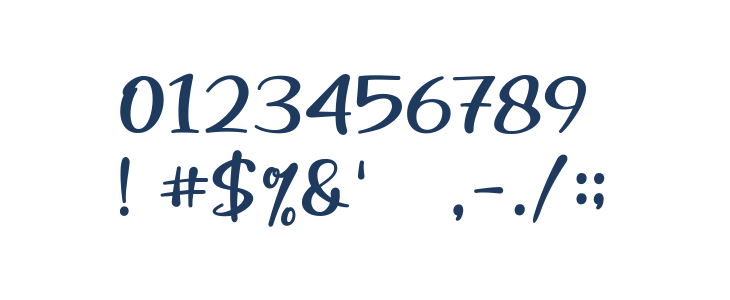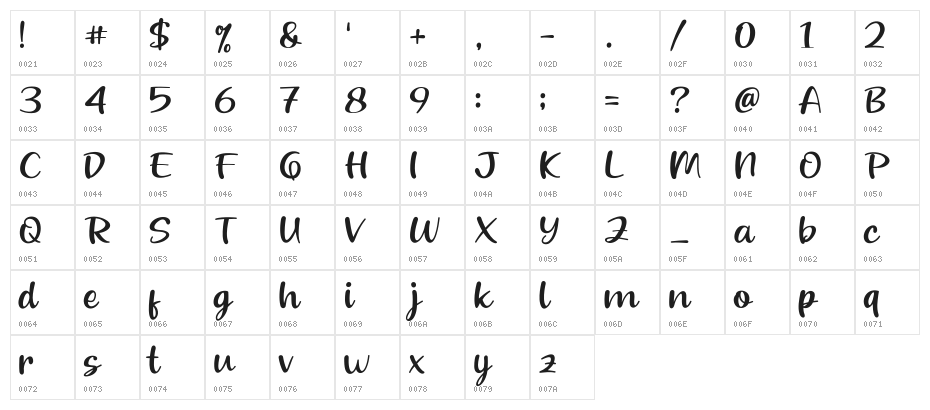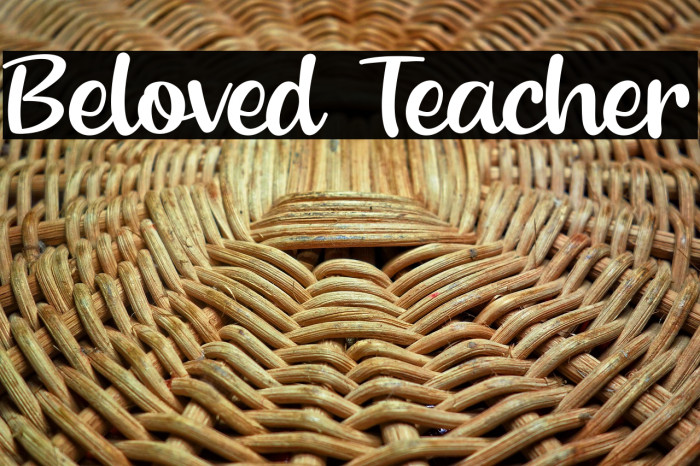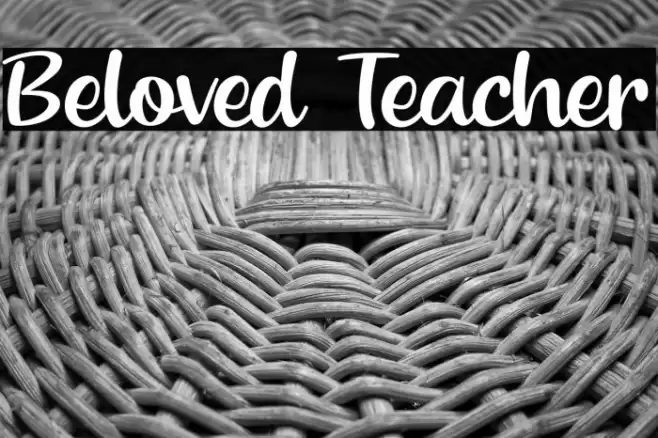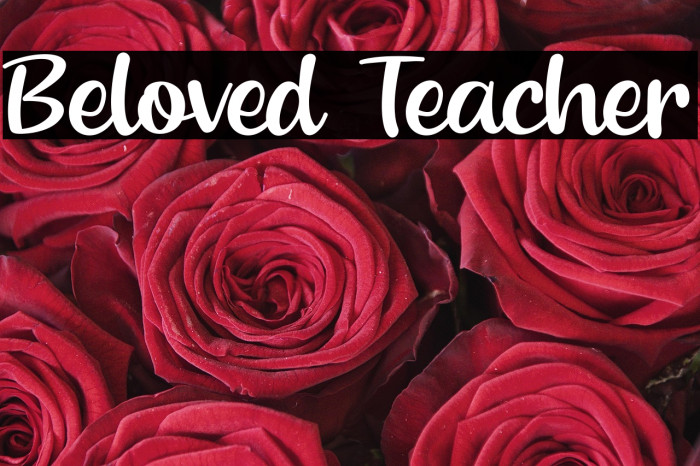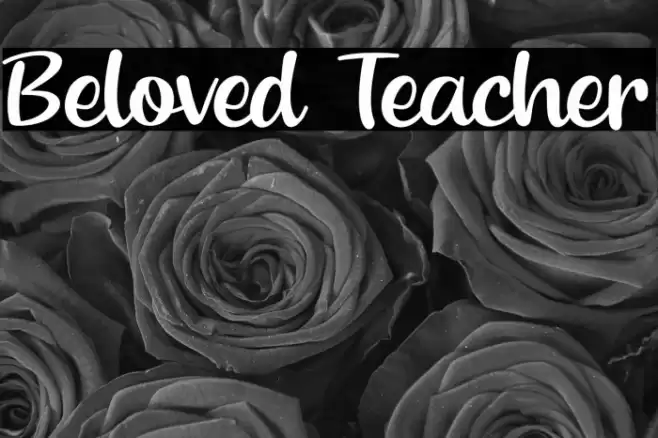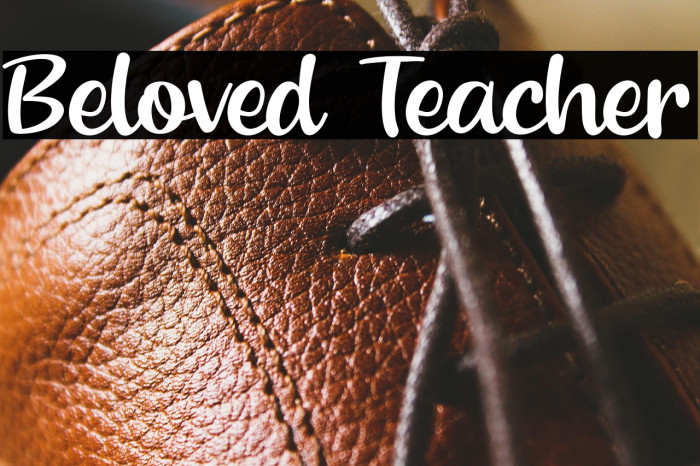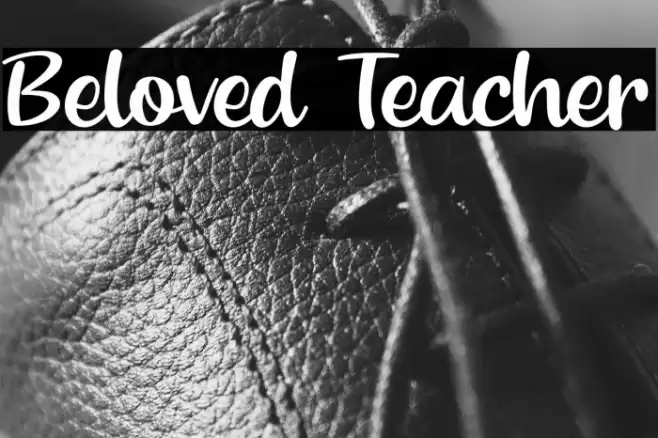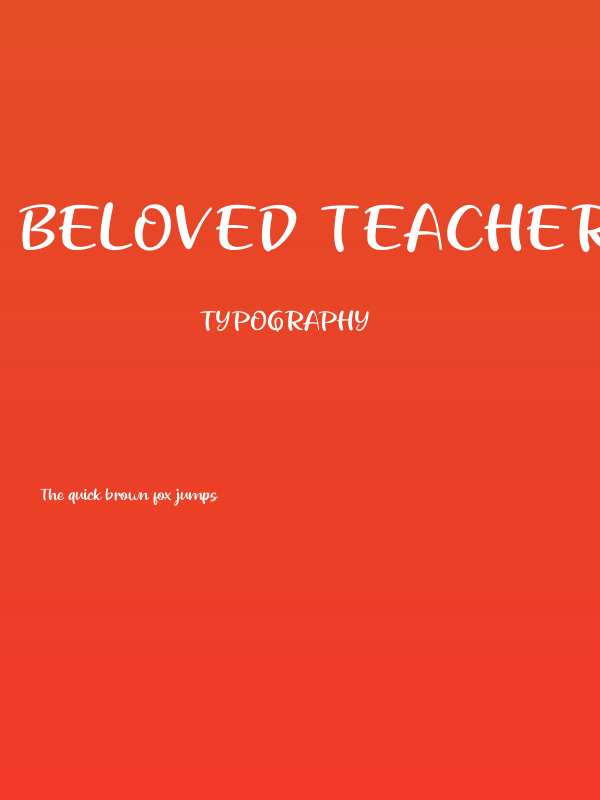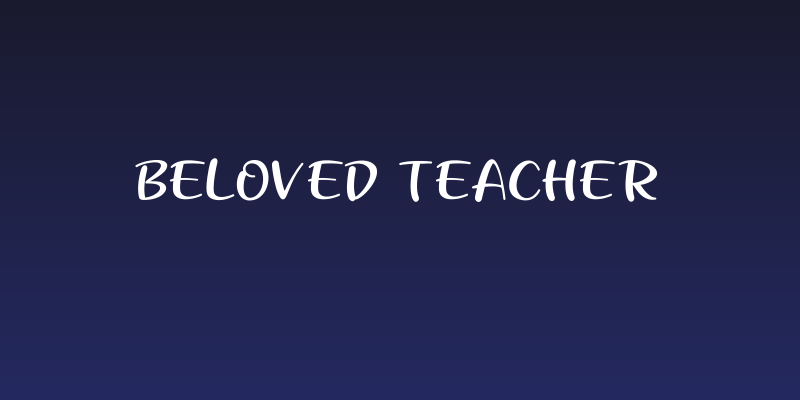
Beloved Teacher Font
Beloved Teacher Description
This font features a playful and flowing script style, characterized by its smooth, rounded edges and a handwritten appearance. The uppercase letters are bold and slightly slanted, giving a sense of movement and energy. The lowercase letters maintain a consistent flow, with some characters featuring unique loops and swirls that add to the font's charm. The numbers are clear and easily readable, while the special characters retain the same whimsical style. Overall, this font exudes a friendly and approachable vibe, making it suitable for various creative projects.
| Proposed Projects | Ideal for greeting cards, invitations, personal branding, and creative projects that require a friendly and approachable touch. |